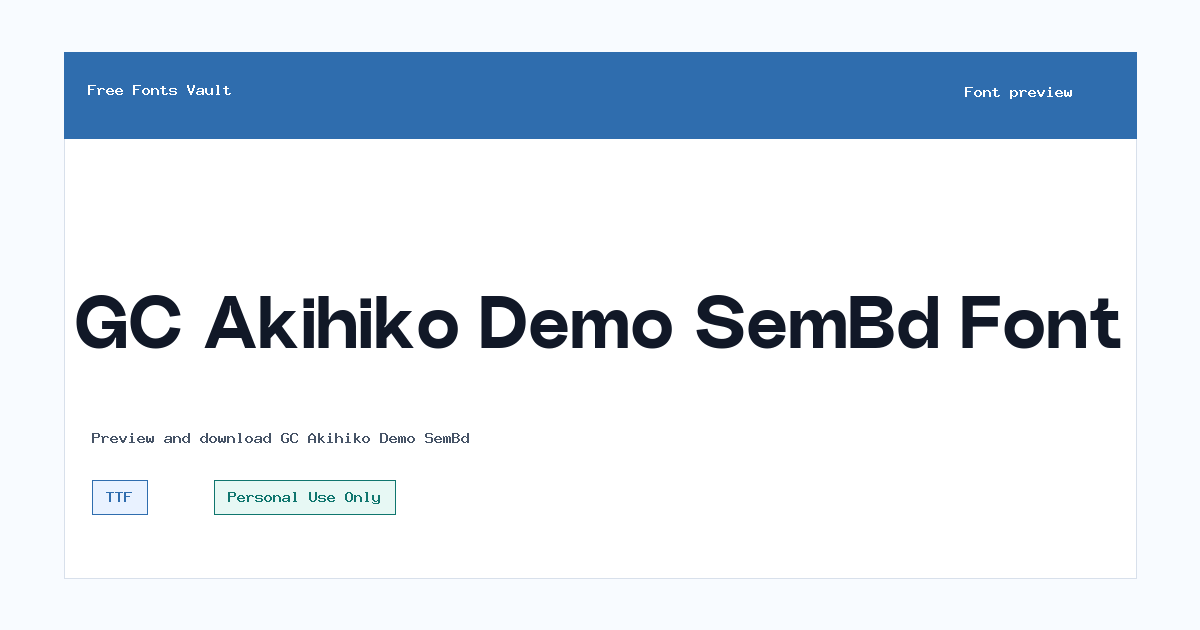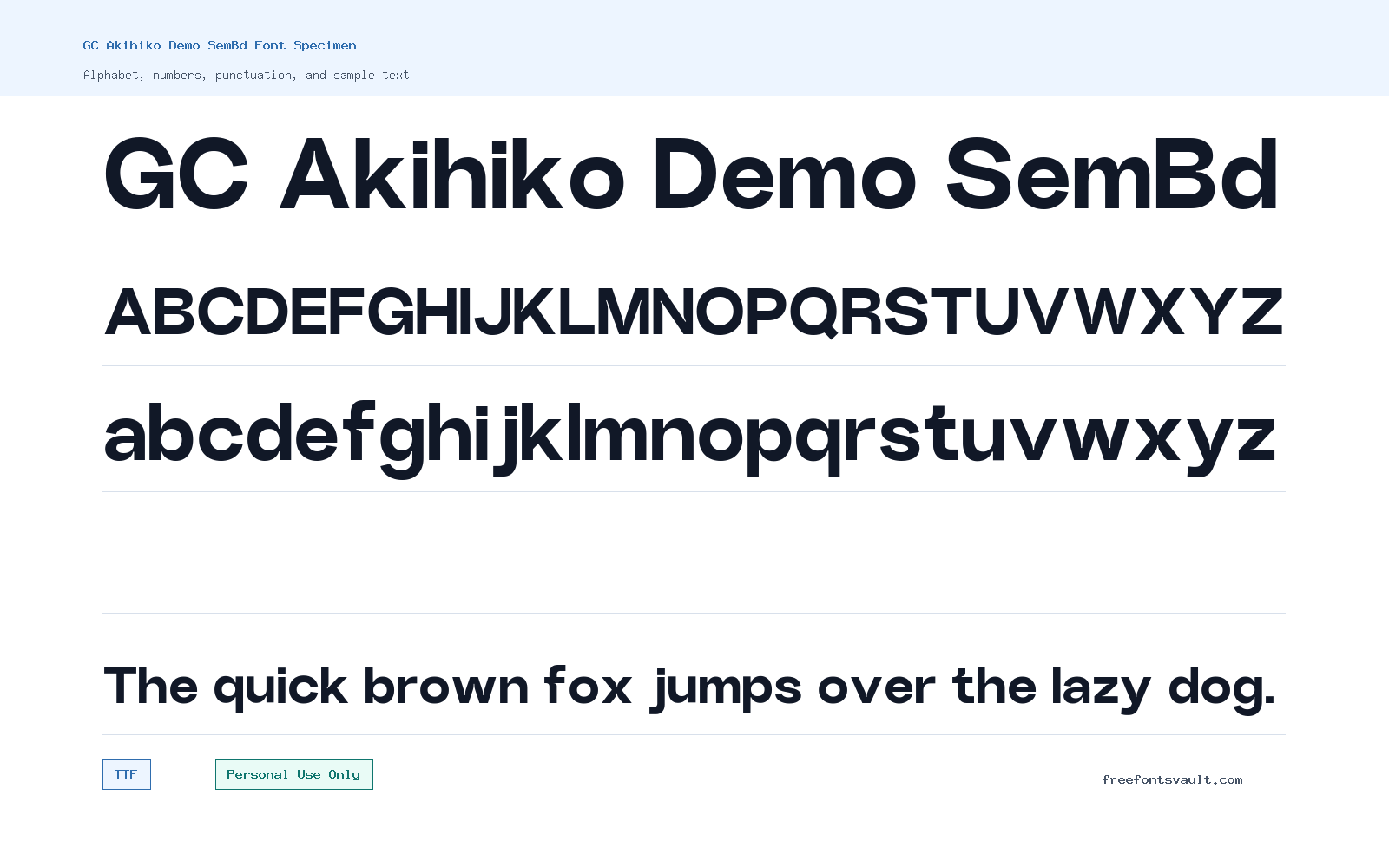
GC Akihiko Demo SemBd
- Designer Laila Nuzul Maghfiroh of Glyphonic
GC Akihiko Demo SemBd is a demo semi-bold style from the GC Akihiko family, offered as a TTF font for personal-use projects. It is a practical choice to test when you need a heavier sans serif look for short, clear text.
About GC Akihiko Demo SemBd Font
GC Akihiko Demo SemBd has the kind of sturdy, modern feel designers often want from a semi-bold sans serif. The file name identifies the style as SemiBold, while the font data lists a 700 weight, so it should behave like a strong display weight in many design apps. That makes it more useful for headings, nameplates, poster lines, social graphics, cover text, and quick branding drafts than for long reading paragraphs. If you are comparing fonts for a logo or title treatment, start by testing a few short words in uppercase, title case, and lowercase. A heavier sans serif can look clean and direct, but spacing and letter shapes matter a lot when the text is brief.
Because this is a demo font, use it as a preview and testing option rather than assuming it is a complete commercial family. Try it in the font preview box with the exact words you plan to use, especially if your design contains tight letter combinations, numbers, punctuation, or mixed-case names. For posters and web mockups, check how it looks at both large hero sizes and smaller button or menu sizes. A semi-bold weight can carry a headline well, but it may feel too dense for body copy if the line length is long. Pair it with a quieter text face for articles, captions, and product descriptions so the display text keeps its emphasis without making the whole layout feel heavy.
- Sans serif design direction suitable for bold headings and short display text
- Listed with a 700 font weight and normal style
- Best tested with real project words before use in a finished design
- Logo concepts and brand name mockups
- Poster headlines and event graphics
- Website hero text and landing page drafts
- Social media quote cards, banners, and thumbnails
- Packaging mockups, labels, and presentation titles
- Typography tests where a strong sans serif display weight is needed
The designer is listed as Laila Nuzul Maghfiroh of Glyphonic, with Glyphonic named as the foundry.
For logo work, test the font at large sizes and check whether the spacing still feels balanced after you type the real brand name. For posters, use it for one main line or a short block of emphasis instead of filling the whole layout with the same weight. For web mockups, pair it with a lighter, highly readable sans serif or a neutral text font so headings stand apart from paragraphs. If you plan to export text as images, keep a copy of the editable file so you can replace the font later if a commercial license is required. Always review the license before moving a design from mockup to public or paid use.
What kind of projects is this font good for?
It is best suited to short, bold text such as headings, logo concepts, posters, web hero sections, social graphics, and display mockups.
Is GC Akihiko Demo SemBd good for body text?
It is better for display text than long paragraphs. Use it for headings and pair it with a simpler, lighter text font for better readability.
Who designed GC Akihiko Demo SemBd?
The font is credited to Laila Nuzul Maghfiroh of Glyphonic.